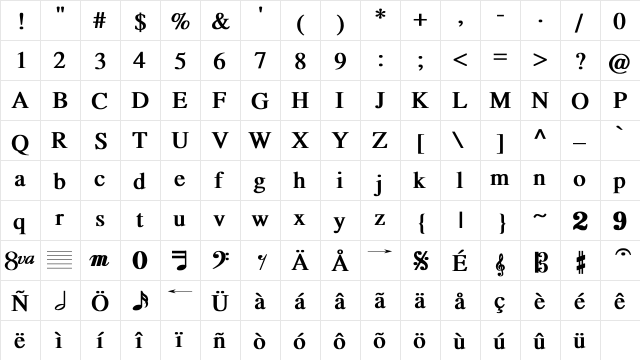
TempoFont bold Bold
TempoFont bold offers clean, dependable letterforms without strong stylistic allegiance, making it a practical choice for designers who need flexibility. Its bold stroke weight gives it real presence on the page.